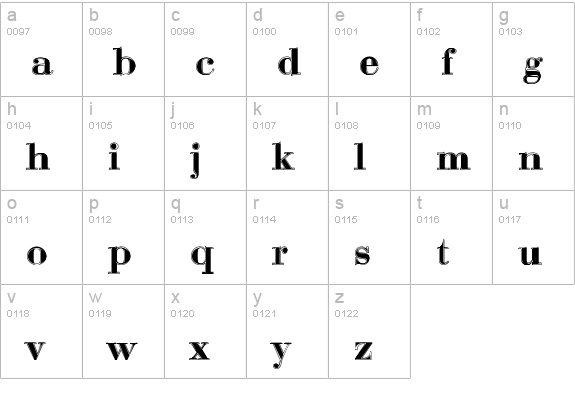
Bauer Bodoni T Demi Bold In1 Font Details
Bauer Bodoni T Demi Bold In1 is a sub-bold, structured variant in the Bauer typeface family \xE2\x80\x94 well suited to sub-headlines and emphasised passages.
Bauer Bodoni T Demi Bold In1 font is a bold and elegant typeface that exudes sophistication and modernity. With its striking thick strokes and sharp serifs, this font commands attention and makes a powerful statement in any design project. Perfect for headlines, titles, and branding materials, Bauer Bodoni T Demi Bold In1 font adds a touch of luxury and refinement to any composition. What's even better is that Bauer Bodoni T Demi Bold In1 font is available for free download at FontsMarket.com. Now you can elevate your designs with this premium typeface without any cost. Don't miss out on the opportunity to enhance your projects with the timeless beauty of Bauer Bodoni T Demi Bold In1 font. Download it today and experience the sophistication it brings to your designs.